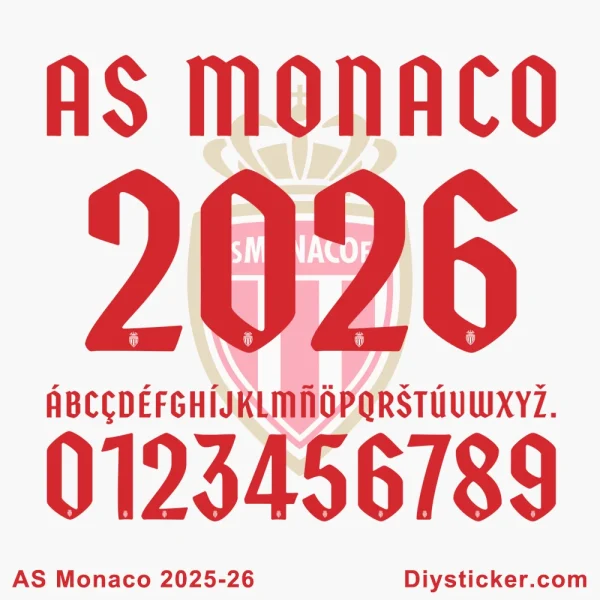
Create authentic AS Monaco designs with the official 2025-26 Season Font. This professionally crafted typeface features the club’s distinctive lettering with unique stylistic elements, perfect for jerseys, fan merchandise, and digital content for Les Monégasques.